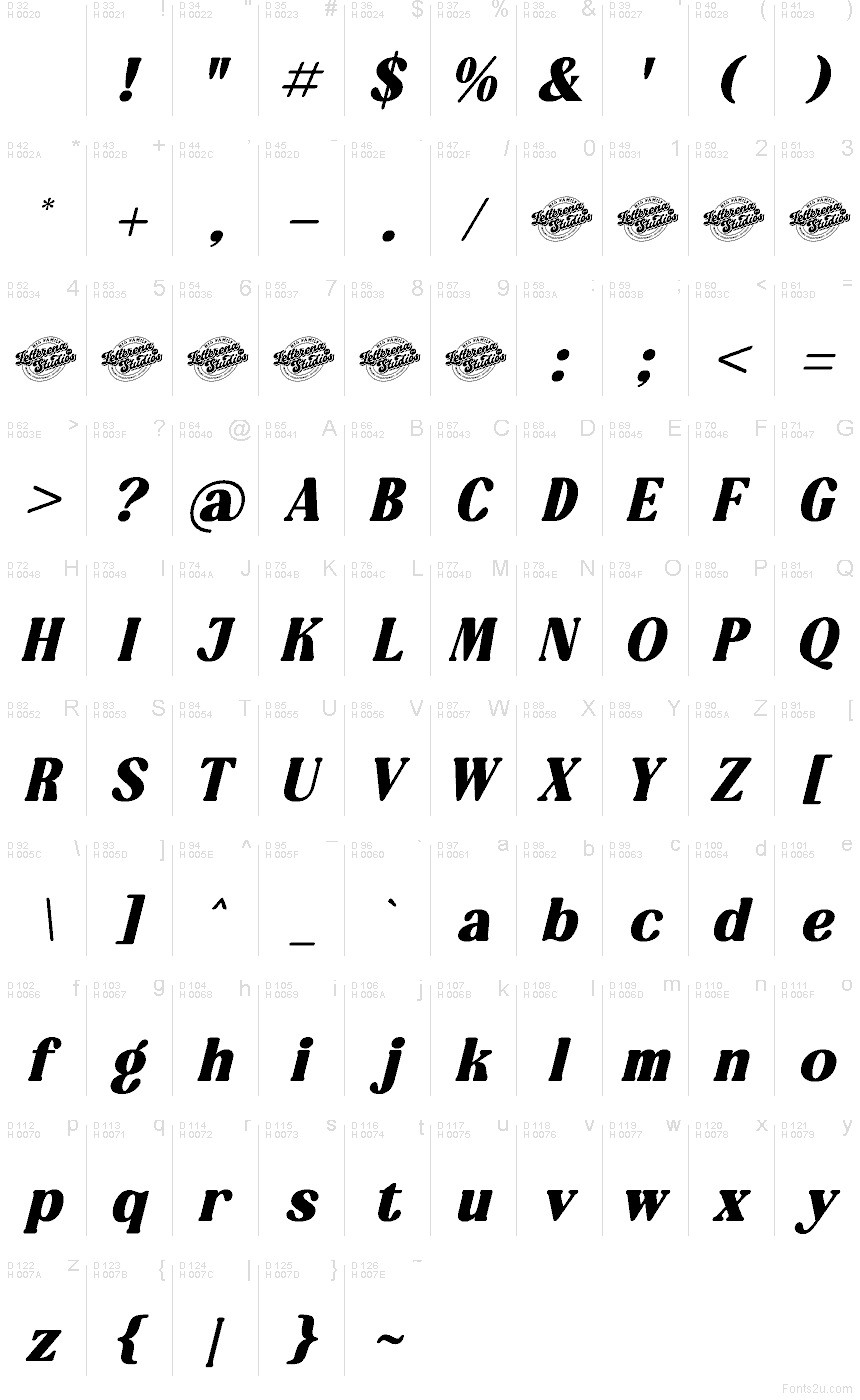
Refales Blighan DEMO VERSION Italic
Refales Blighan Italic font by Letterena Studios is a free serif font that pours dramatic, inky curves into every letter. Its bold weight, sweeping slant, and sculpted ball terminals give it the lush presence of hand-lettered signage, but with the polish of a modern typeface. The rhythm feels smooth and confident, so even short words look like a signature flourish rather than plain text.
Using Refales Blighan Italic, headlines and names instantly feel premium—great for logos, packaging, magazine covers, book titles, wedding suites, and bold social posts. This free font thrives at larger sizes where its thick strokes and velvety curves can breathe. Pair it with a clean sans serif for body copy and let Refales Blighan handle the hero moments.